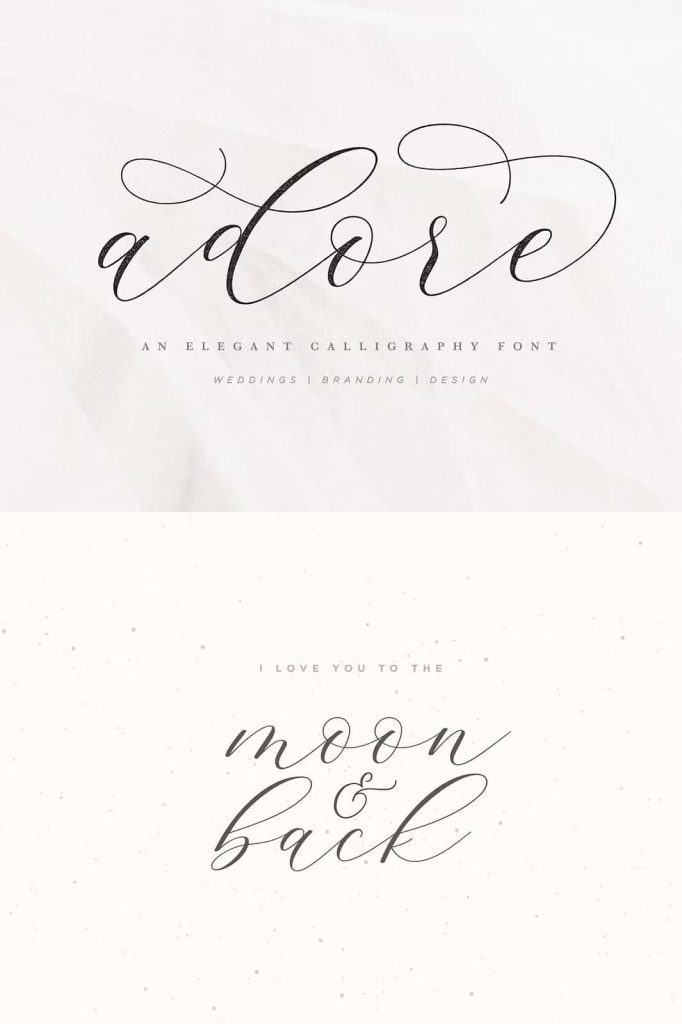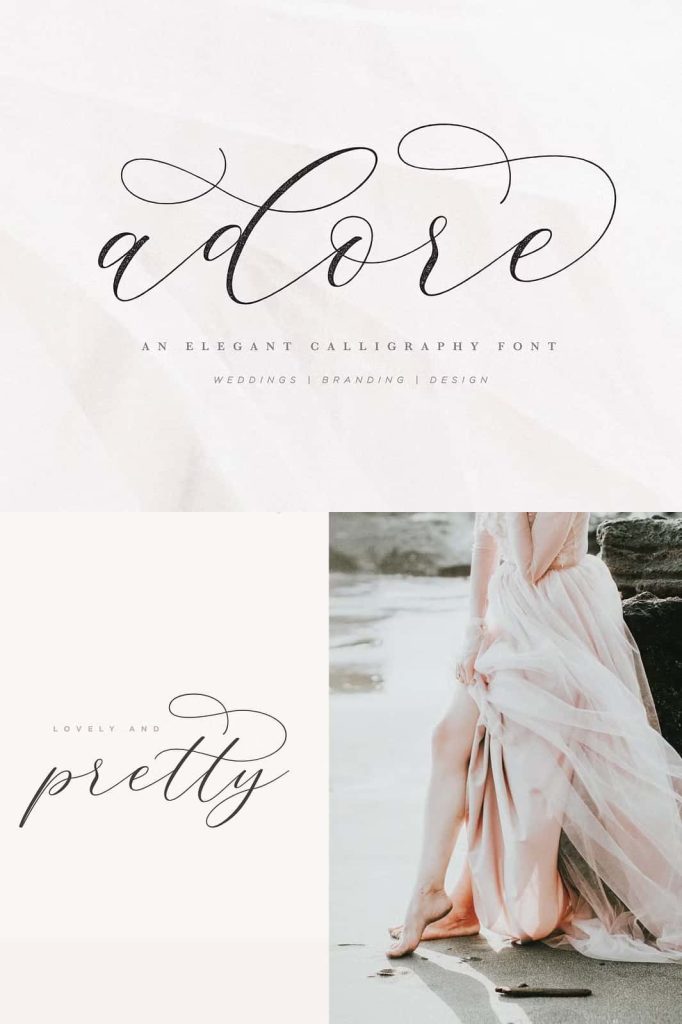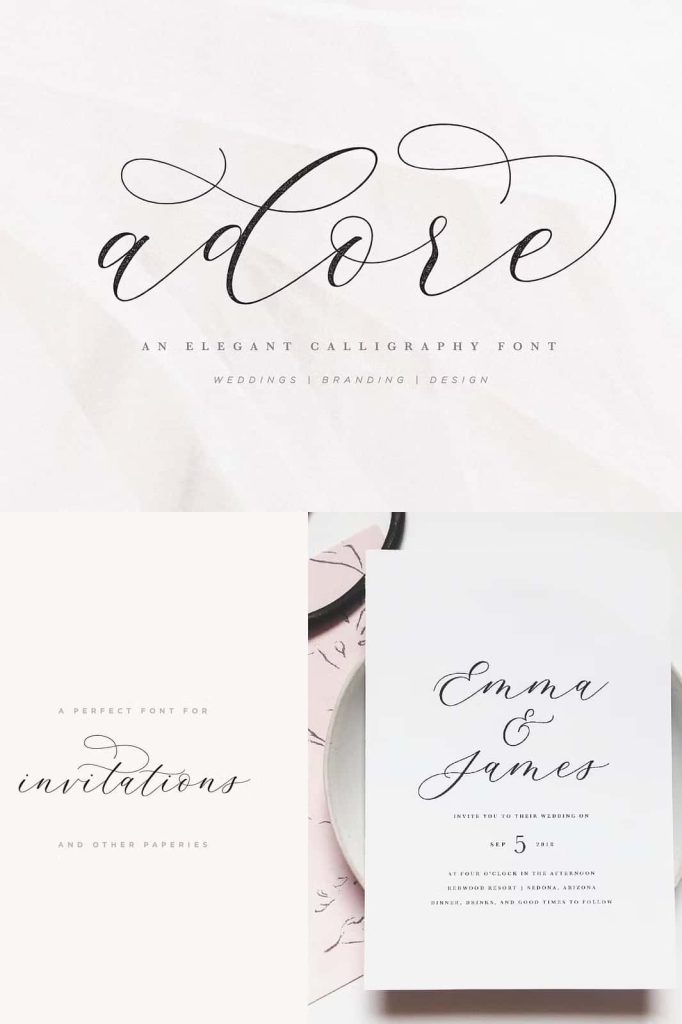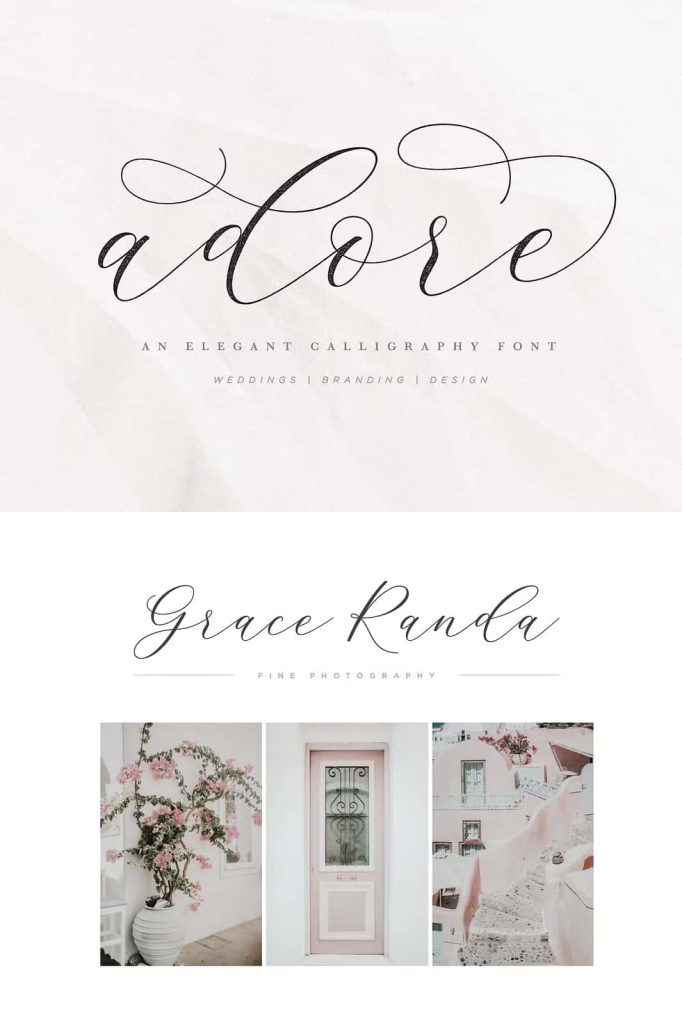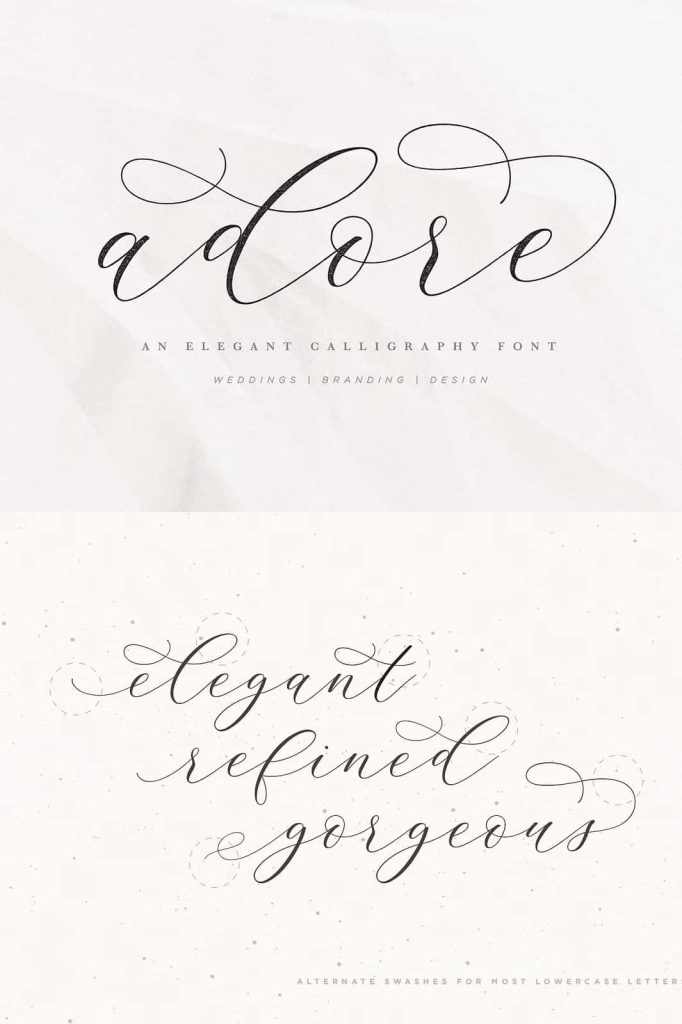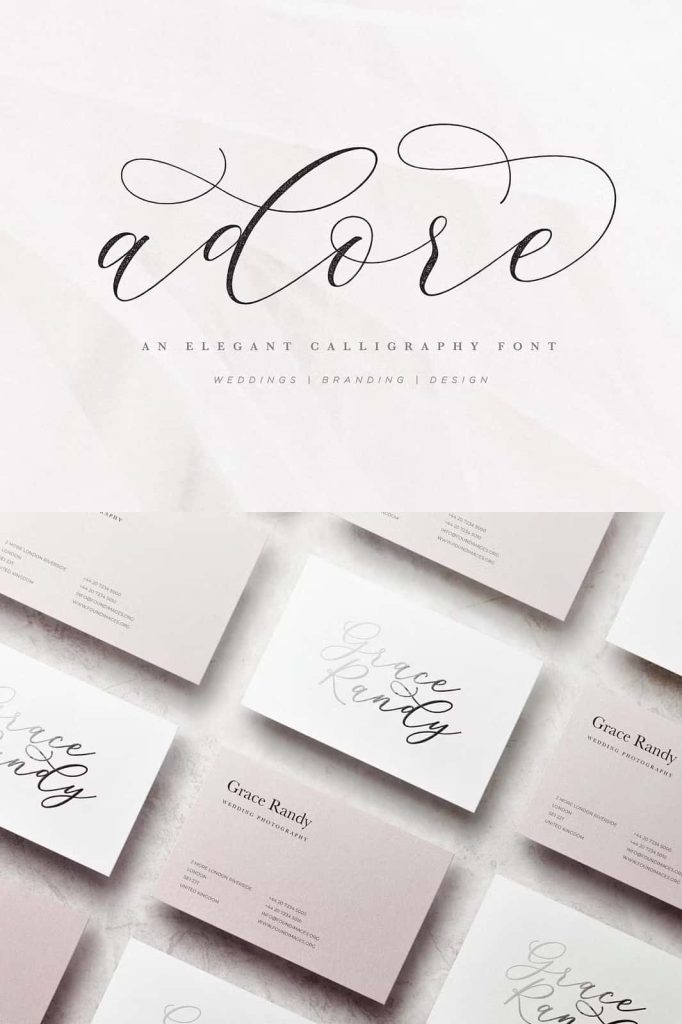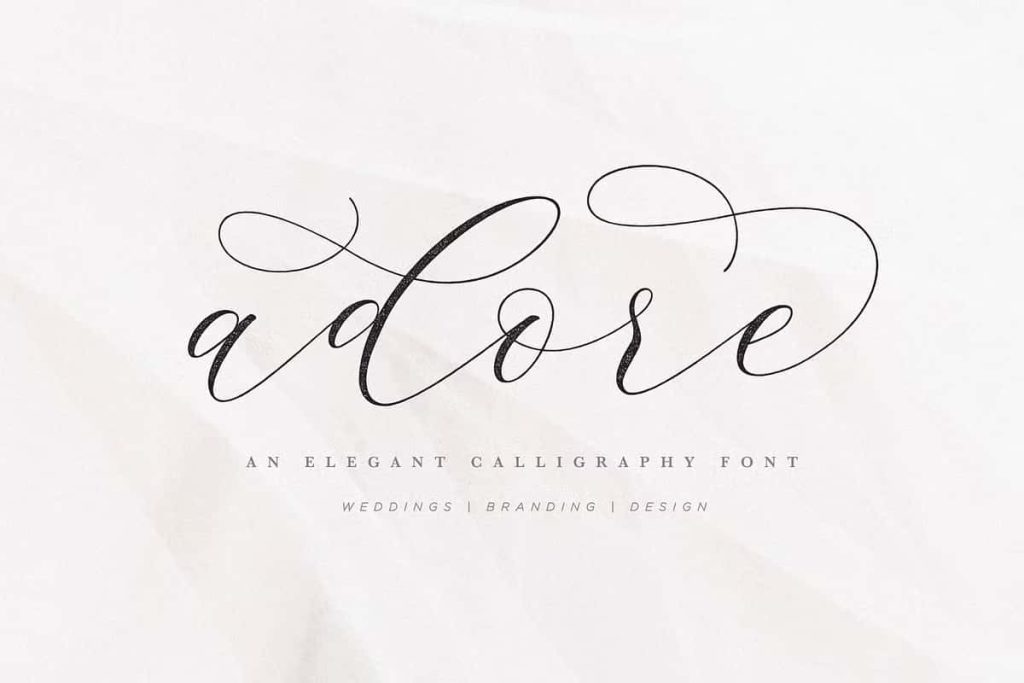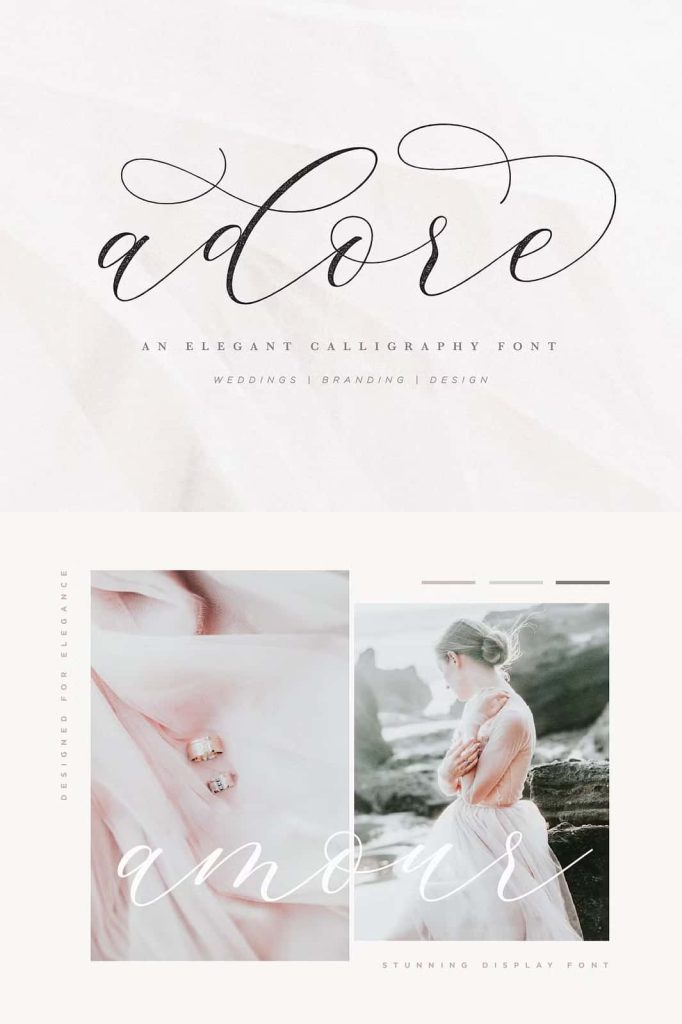
Adore Calligraphy Font: Elegant Modern Script for Creative Designs
Adore Calligraphy Font is a refined and stylish script typeface designed to bring elegance and modern charm to your creative projects. Built with attention to detail and artistic flow, this font delivers smooth curves, expressive strokes, and beautiful swashes that instantly elevate the visual appeal of any design. Whether you are designing wedding invitations, branding materials, social media graphics, or product packaging, Adore Calligraphy Font offers the sophistication and versatility that modern designers need.
This font combines the graceful character of traditional calligraphy with the clean style of contemporary typography. As a result, it creates a balanced and visually pleasing script that feels both classic and modern. Designers, creators, and entrepreneurs can use Adore Calligraphy Font to add personality and elegance to their projects while maintaining professional quality.
Elegant Script Font Designed for Versatility
Adore Calligraphy Font was created to help designers produce visually striking typography with minimal effort. The flowing letterforms naturally connect with each other, creating a seamless handwritten appearance that feels authentic and artistic. Each character has been carefully crafted to ensure smooth readability while maintaining the beauty of handwritten calligraphy.
Because of its versatile style, Adore Calligraphy Font works well across many design categories. It fits perfectly in luxury branding, feminine product packaging, greeting cards, fashion labels, and elegant logos. At the same time, it performs beautifully in digital environments such as websites, social media posts, online advertisements, and promotional graphics.
Advanced OpenType Features for Creative Typography
One of the most powerful aspects of Adore Calligraphy Font is its rich collection of OpenType features. These features allow designers to customize and enhance their typography without needing additional graphic elements. By activating these features in design software such as Adobe Illustrator, Photoshop, or InDesign, users can easily transform simple text into decorative and expressive lettering.
Adore Calligraphy Font includes beginning and ending swashes that help create elegant word compositions. These swashes add decorative strokes to the start or end of words, making headlines, invitations, and branding materials look more refined and artistic.
In addition to swashes, the font also provides alternate characters for many lowercase letters. These alternate forms allow designers to replace standard characters with stylistic variations, creating more natural and dynamic lettering. This feature is especially useful for logo design, quotes, and signature-style typography.
Ligatures and Alternates for Natural Letter Flow
Adore Calligraphy Font also includes a set of ligatures designed to improve the visual connection between letters. Ligatures replace certain letter combinations with specially designed characters that flow more smoothly together. This feature helps produce authentic calligraphy results while maintaining readability and style.
The font also contains a variety of alternate glyphs that give designers more control over how words appear. By switching between different character styles, you can create unique typography that feels custom-made. This flexibility allows you to experiment with different letter combinations until you achieve the perfect aesthetic for your project.
Complete Character Set with Numbers and Punctuation
Adore Calligraphy Font includes a comprehensive character set designed to support professional design needs. In addition to uppercase and lowercase letters, the font contains numbers, punctuation marks, and additional symbols that allow you to build complete and polished text layouts.
This full character set ensures that designers can use Adore Calligraphy Font across various design formats, from short titles and logos to longer phrases and decorative text blocks. The font maintains its elegance and clarity even when used in more complex layouts.
Multilingual Support for Global Projects
Adore Calligraphy Font also supports multiple languages, making it suitable for international design projects. With extended character support, designers can confidently create content for different regions and audiences without worrying about missing glyphs or inconsistent typography.
Multilingual support makes this font especially useful for branding, marketing campaigns, and digital content that target global markets. Whether you are designing for local clients or international businesses, Adore Calligraphy Font ensures consistent and beautiful typography.
Perfect for Branding, Invitations, and Creative Projects
Adore Calligraphy Font works exceptionally well in projects that require elegance and personality. Designers frequently use this font for wedding invitations, luxury branding, fashion logos, cosmetic packaging, greeting cards, and social media graphics. The graceful strokes and stylish swashes instantly enhance the visual quality of any layout.
If you are searching for a modern script typeface that blends elegance, versatility, and advanced typography features, Adore Calligraphy Font is an excellent choice. It empowers designers to create stunning visual compositions while maintaining the charm and beauty of authentic calligraphy.